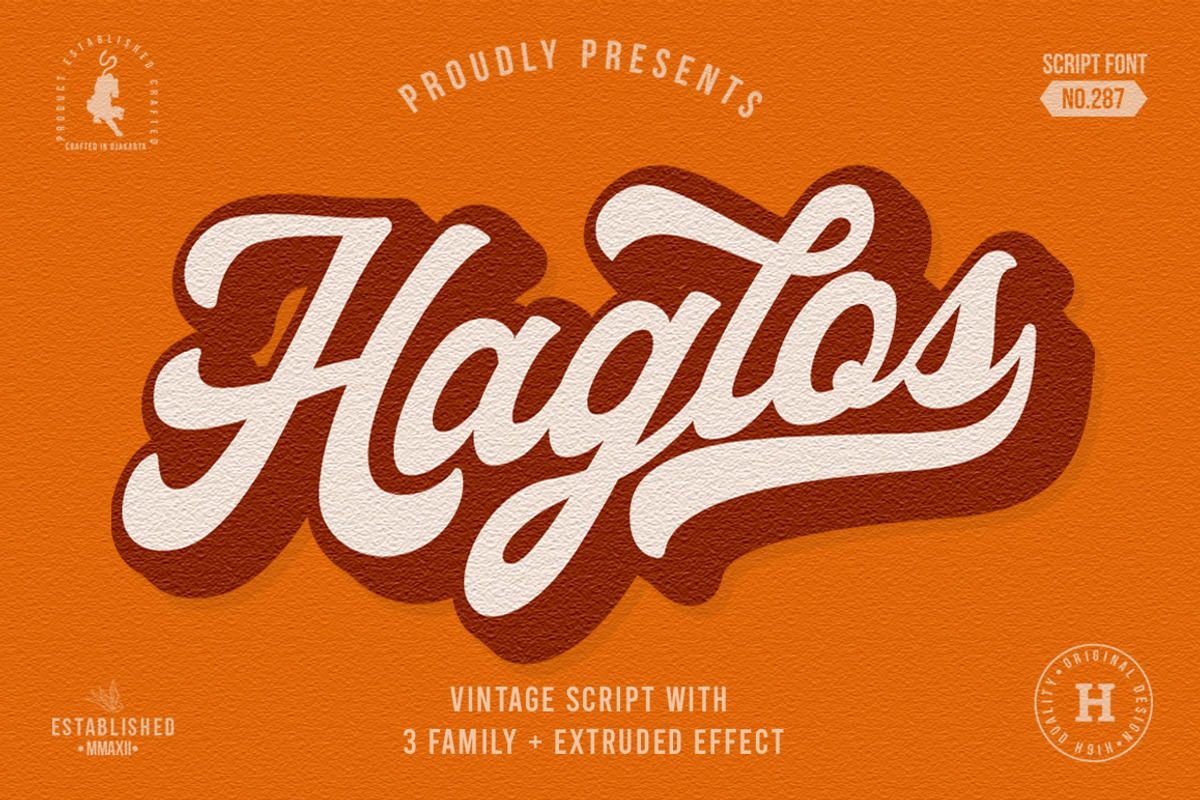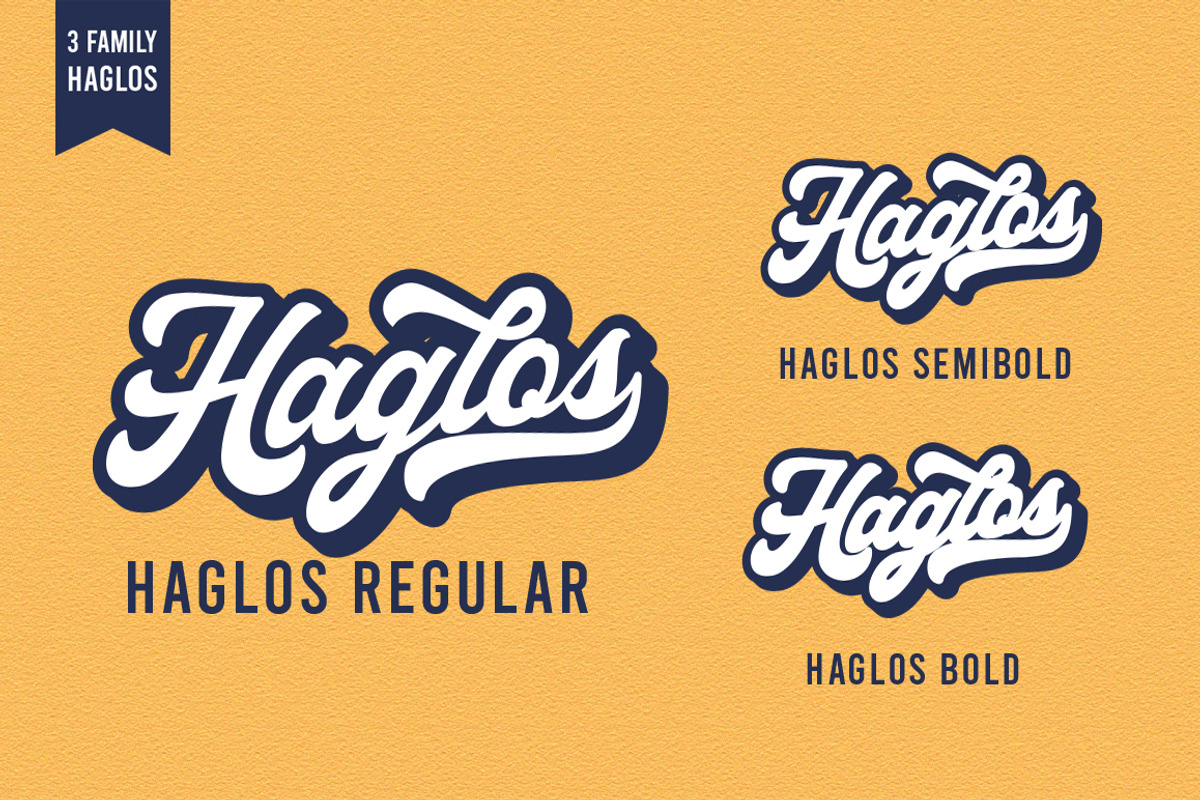
Haglos is Inspired by Modern Vintage & Retro styles and a combination with old American traditional style. It allowing you to create hand lettering is an instant and a super handy set of bonus Swash. Ideal for logos, handwritten quotes, product packaging, header, poster, merchandise, social media & greeting cards.